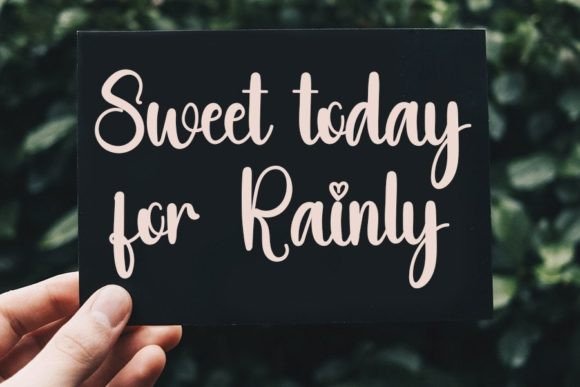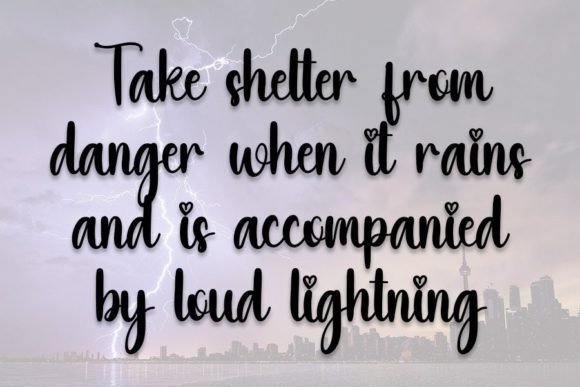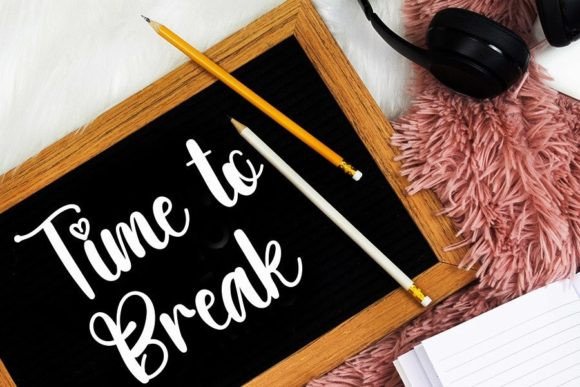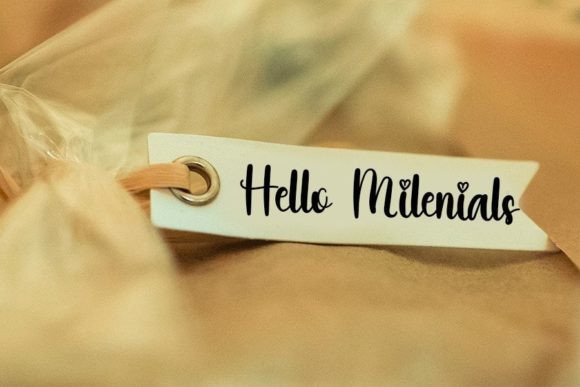
Rains Font
About Rains Font
Rains is a beautifully crafted and well-rounded handwritten font that adds a delicate and authentic touch to your crafty projects. Infused with little details that evoke a super romantic feel, this font is perfect for a variety of creative endeavors. Whether you’re designing wedding invitations, birthday cards, personal branding, elegant logos, or any other project, Rains brings a unique and romantic charm to enhance the authenticity of your typography.
The delicate strokes of Rains make it versatile and suitable for a range of applications. Imagine using it to create wedding invitations where the intricate details contribute to a romantic and intimate atmosphere. Alternatively, envision Rains gracing birthday cards with its crafted aesthetic, elevating the emotional impact of your messages.
Rains truly shines in personal branding, offering a distinctive and romantic typographic identity. Its well-rounded and delicate design contributes to an overall aesthetic that is both approachable and sophisticated. Incorporating Rains into elegant logos creates a signature look that speaks to romance and creativity.
The font’s versatility extends to various crafting projects where an authentic and romantic touch is desired. Whether you’re working on DIY endeavors, handmade goods, or any creative pursuit that requires genuine and romantic typography, Rains becomes the perfect choice.
In conclusion, Rains is more than just a font; it’s a design element that adds a delicate and romantic authenticity to your crafty projects. Elevate your creative endeavors, from invitations to personal branding, with the romantic and well-rounded charm of Rains. Let this font be the authentic and romantic touch that brings a crafted and personalized feel to your designs, making them stand out with a unique and heartfelt appeal.